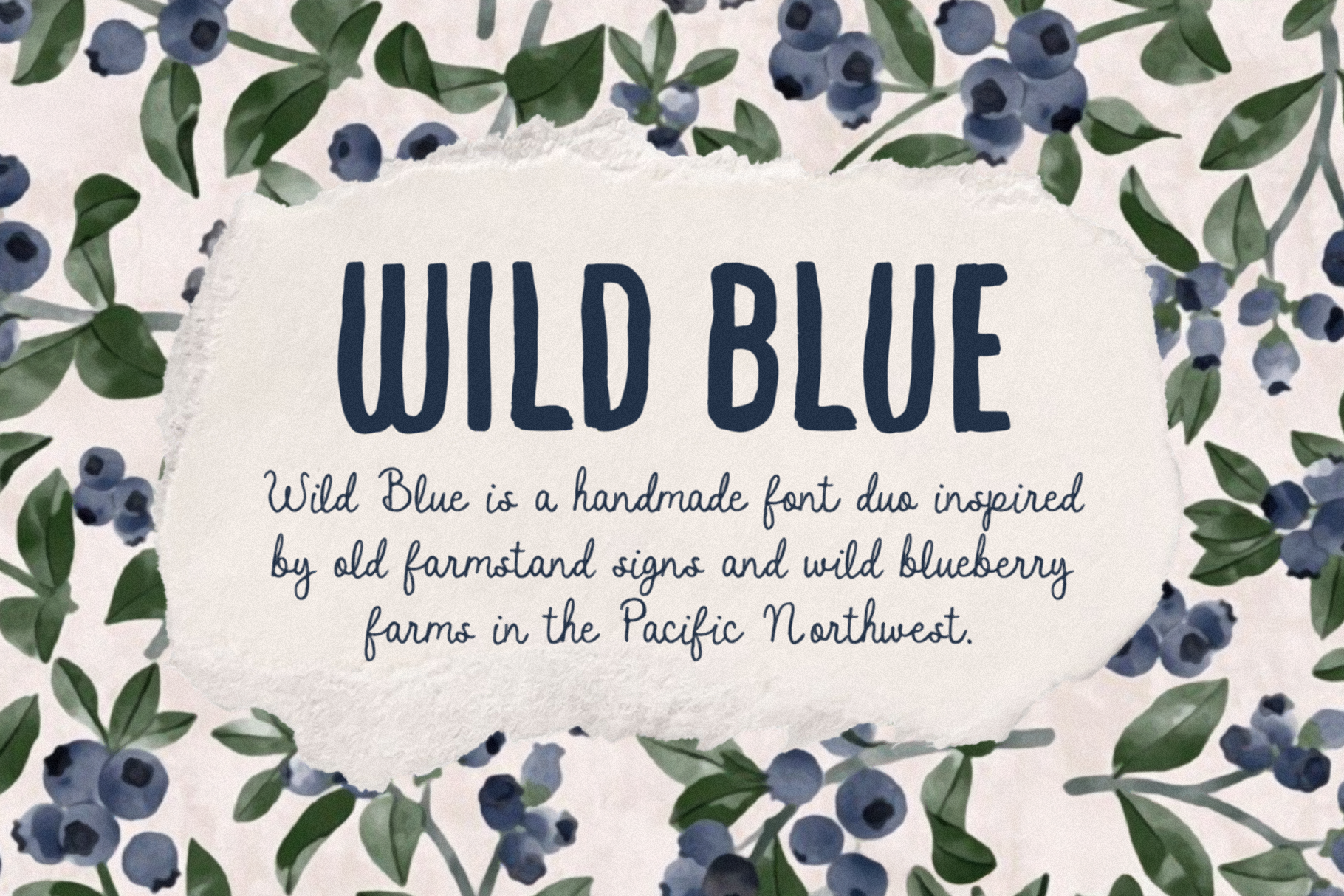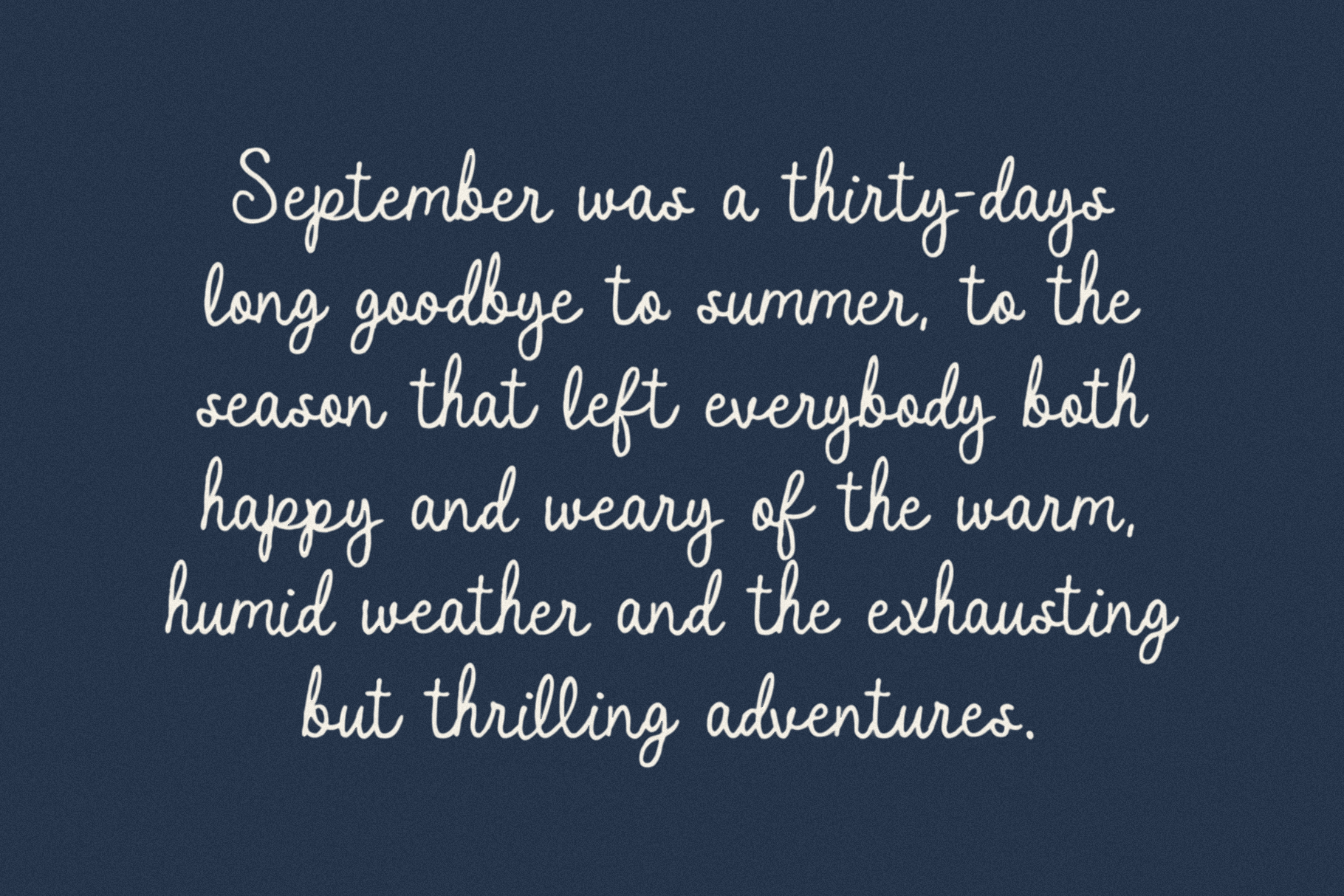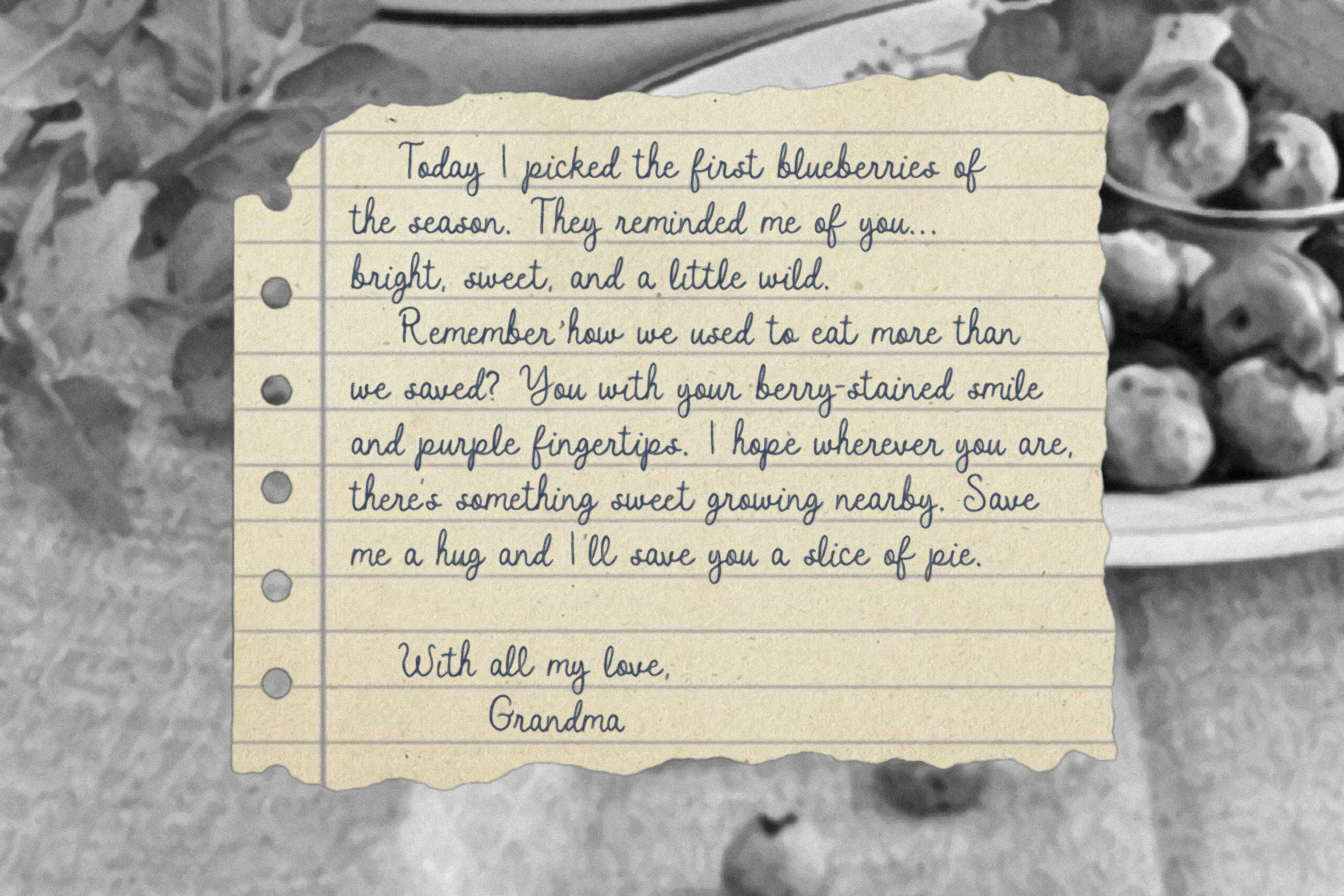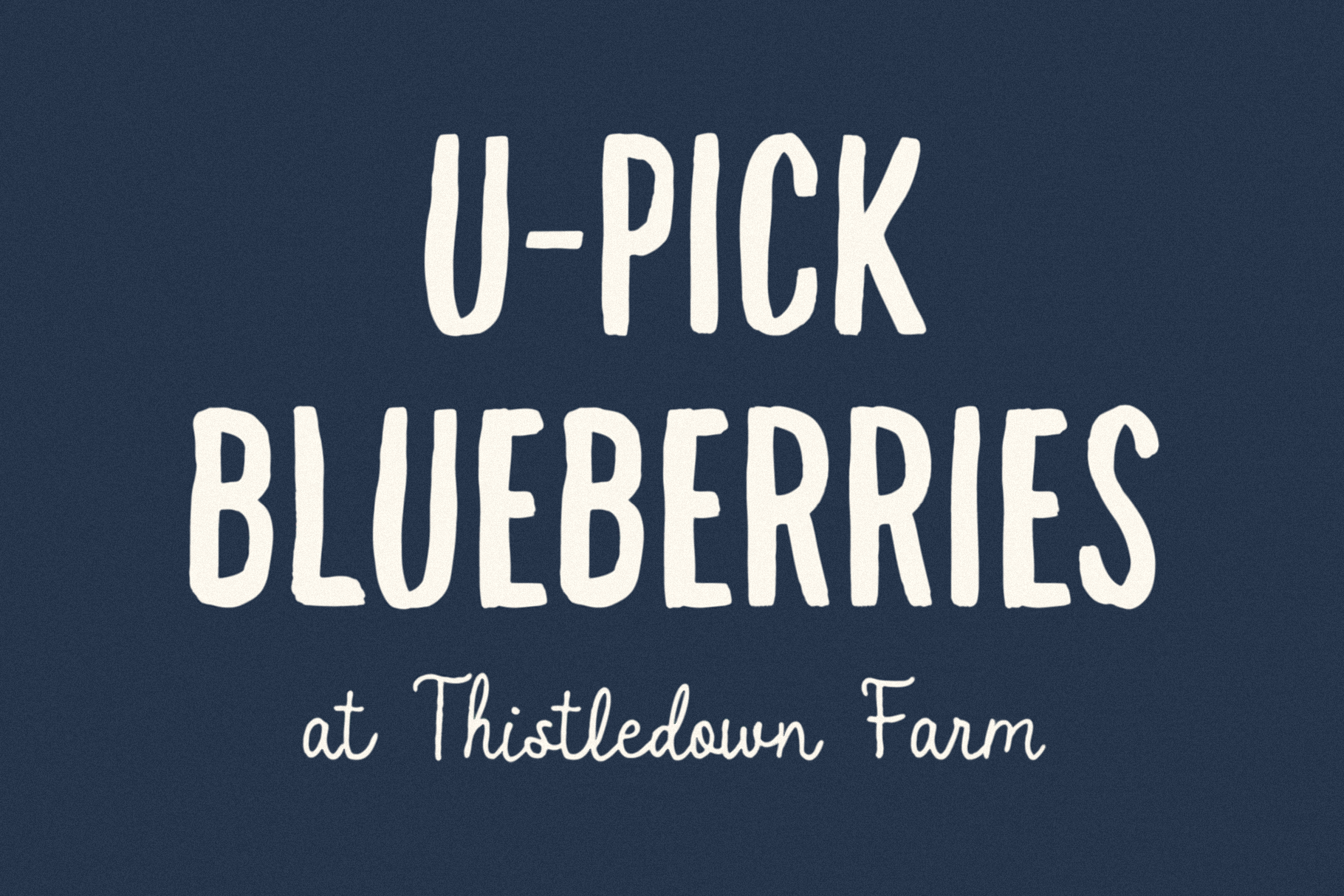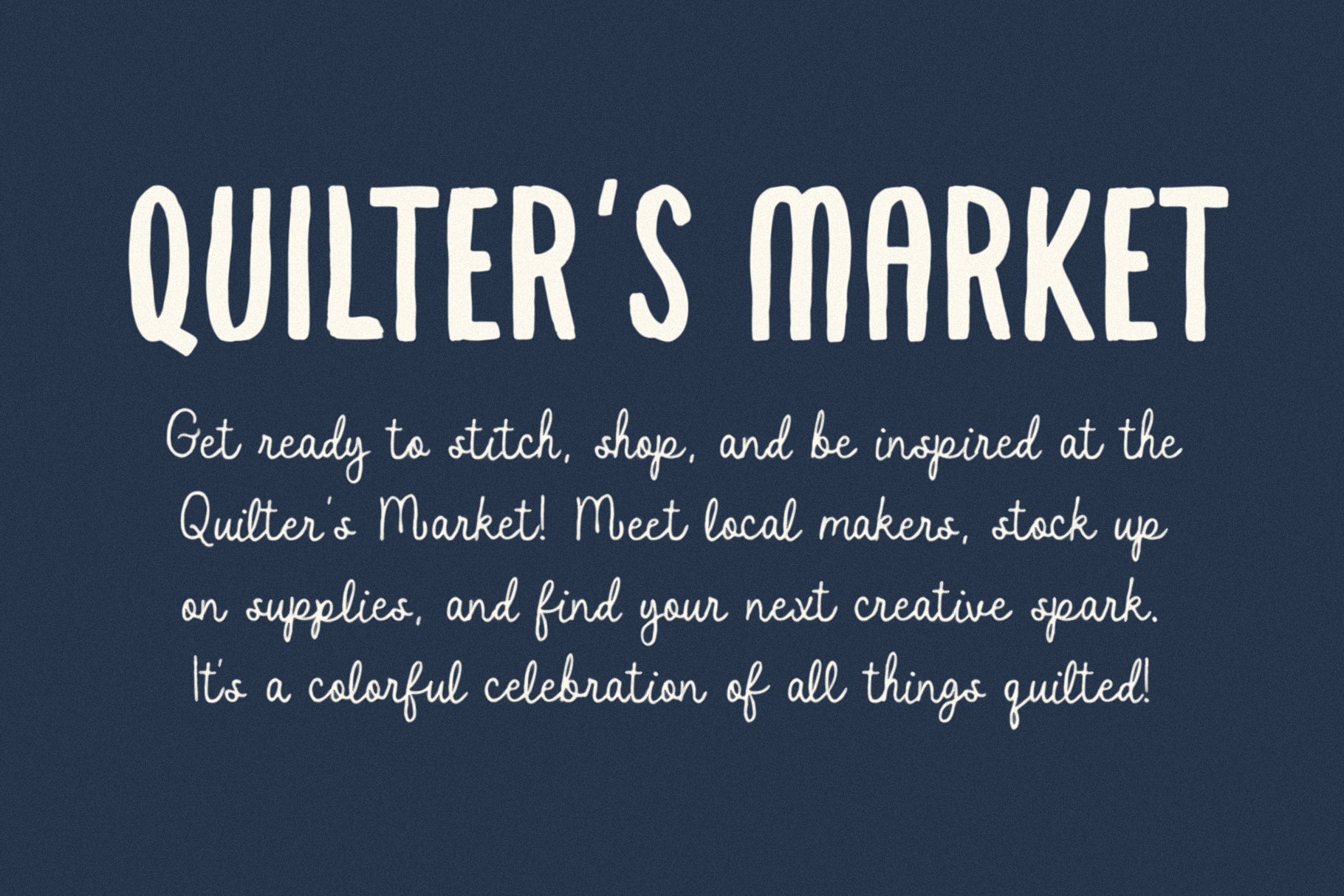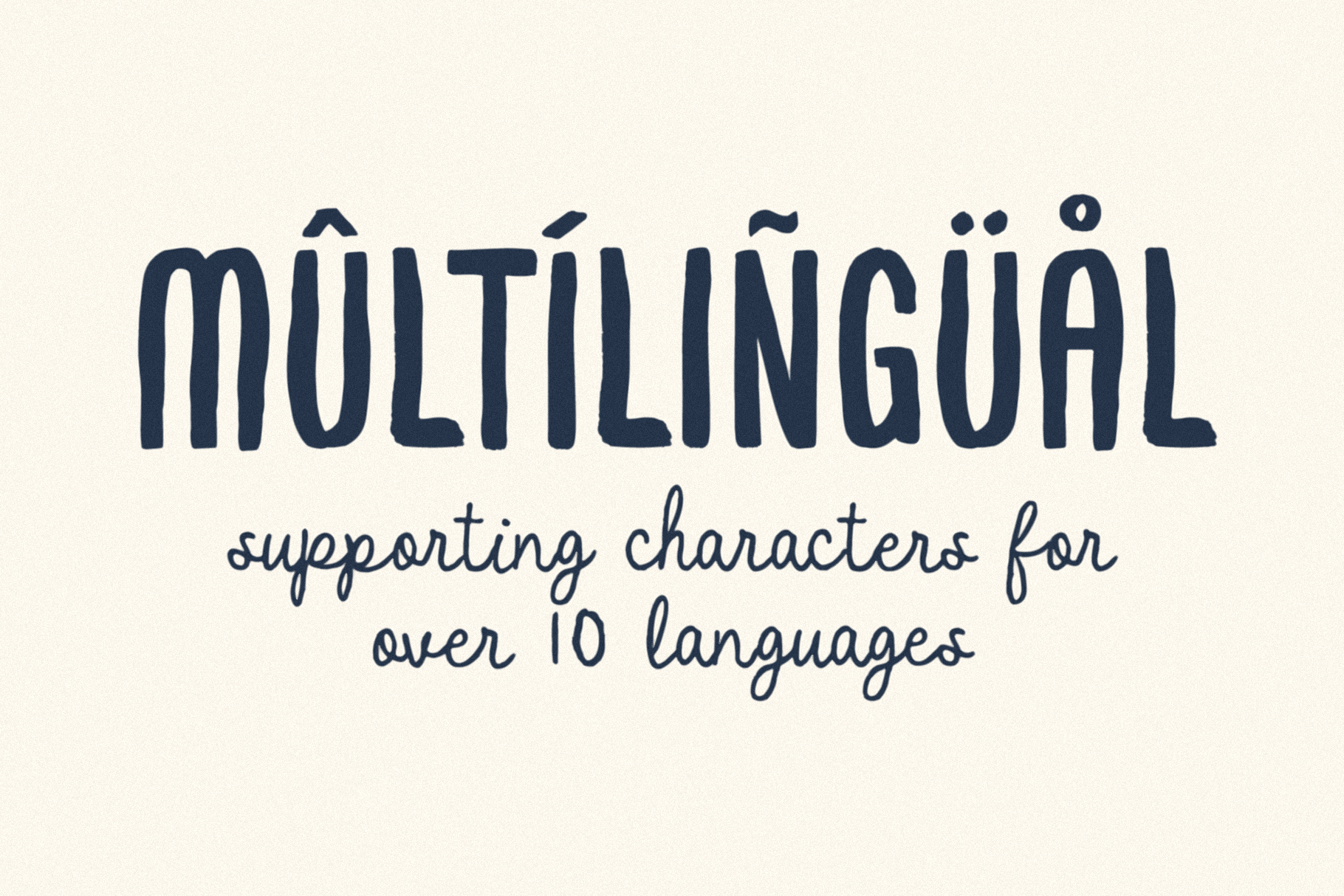
Wild Blue
WILD BLUE – A handmade font trio inspired by old farmstand signs and wild blueberry farms in the Pacific Northwest. Made with love by Bruised Goods.
Language Support: Danish, English, French, German, Irish, Italian, Portuguese, Spanish, Swedish, and Swiss German.